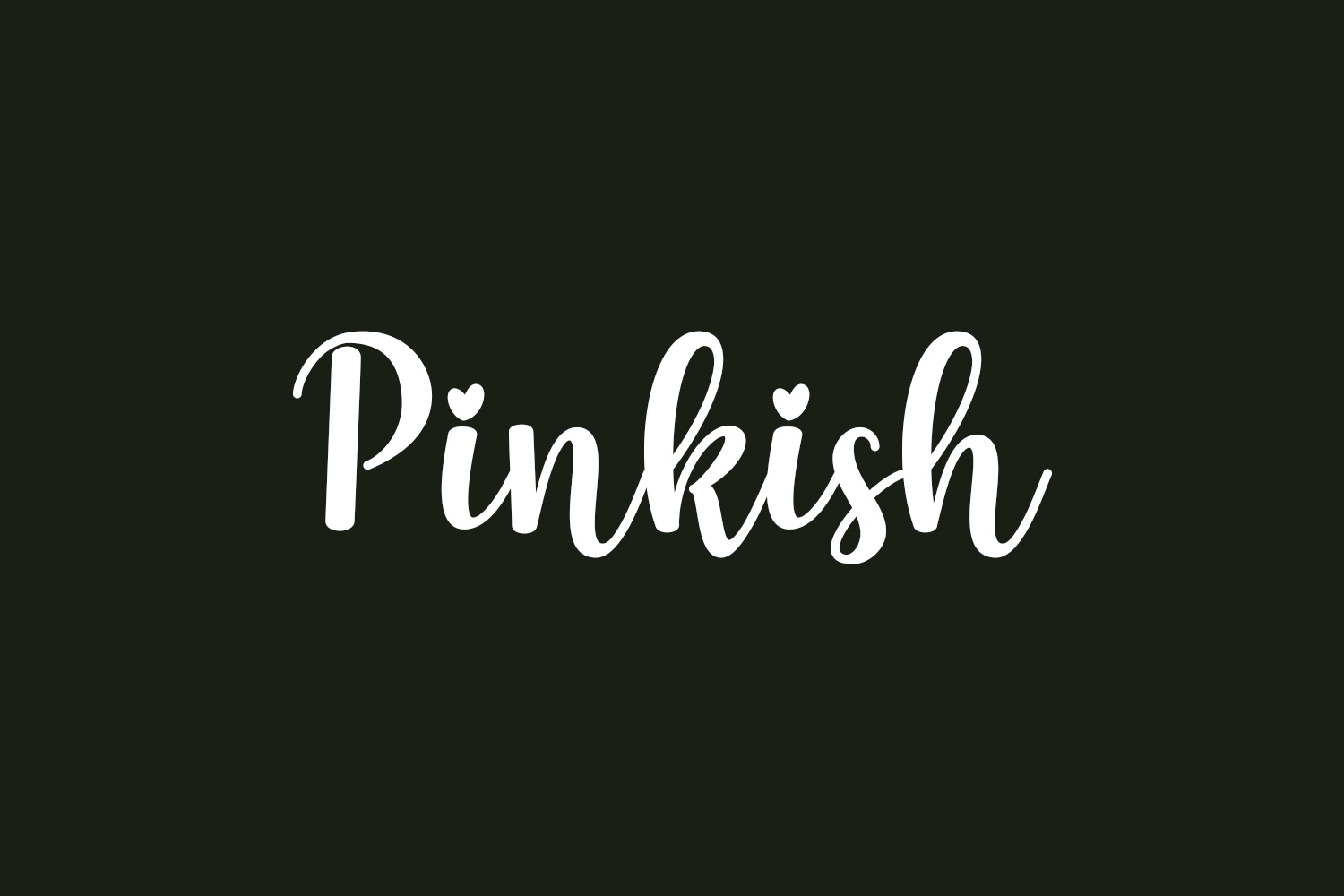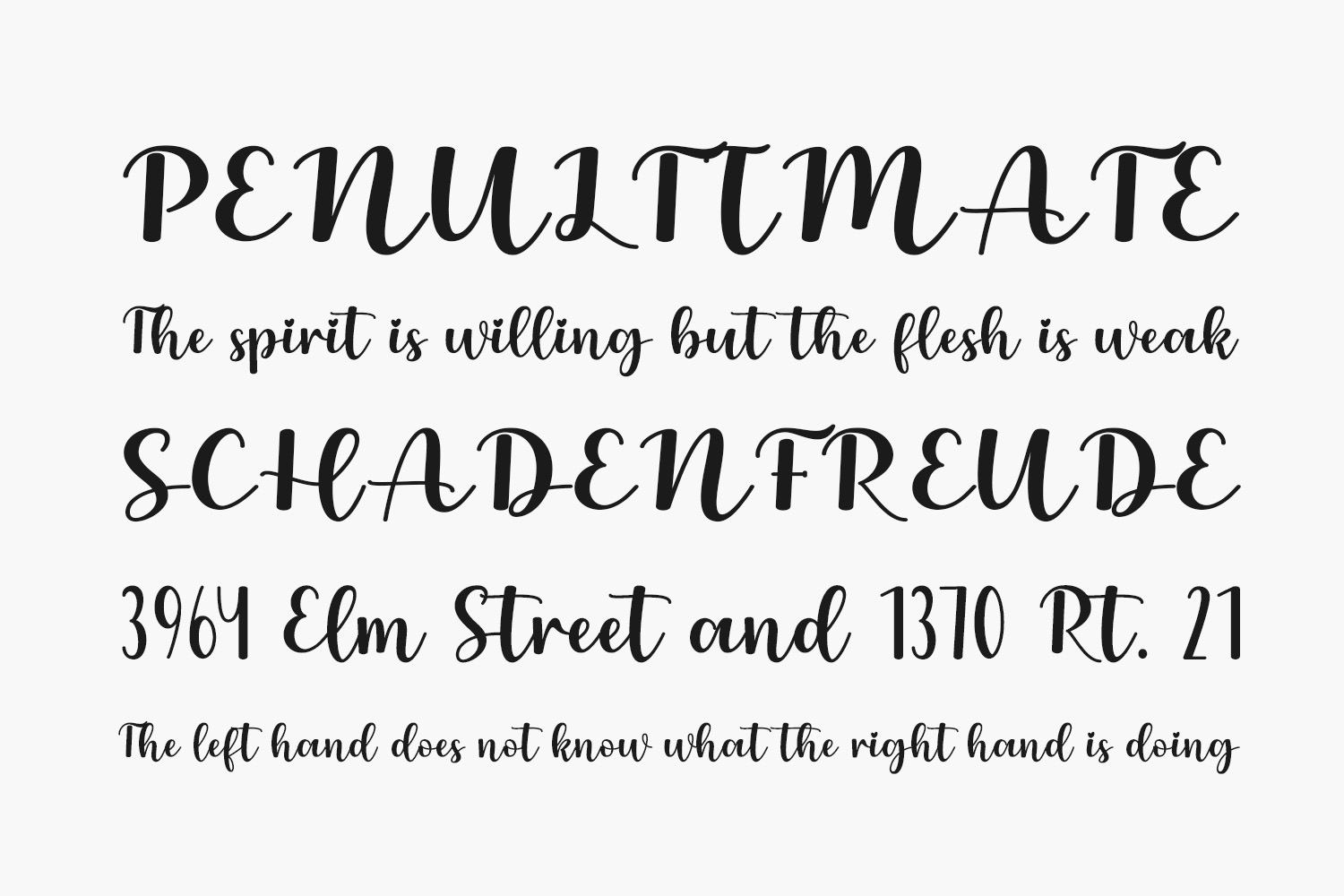
Pinkish Free Font Family is a magical script font carefully created with a touch of elegance. Whether you’re looking for fonts for Instagram or calligraphy scripts for DIY projects, this font will turn any creative idea into a true piece of art. Pinkish Free Font Family is free for personal use only. Please purchase the full version for commercial use.